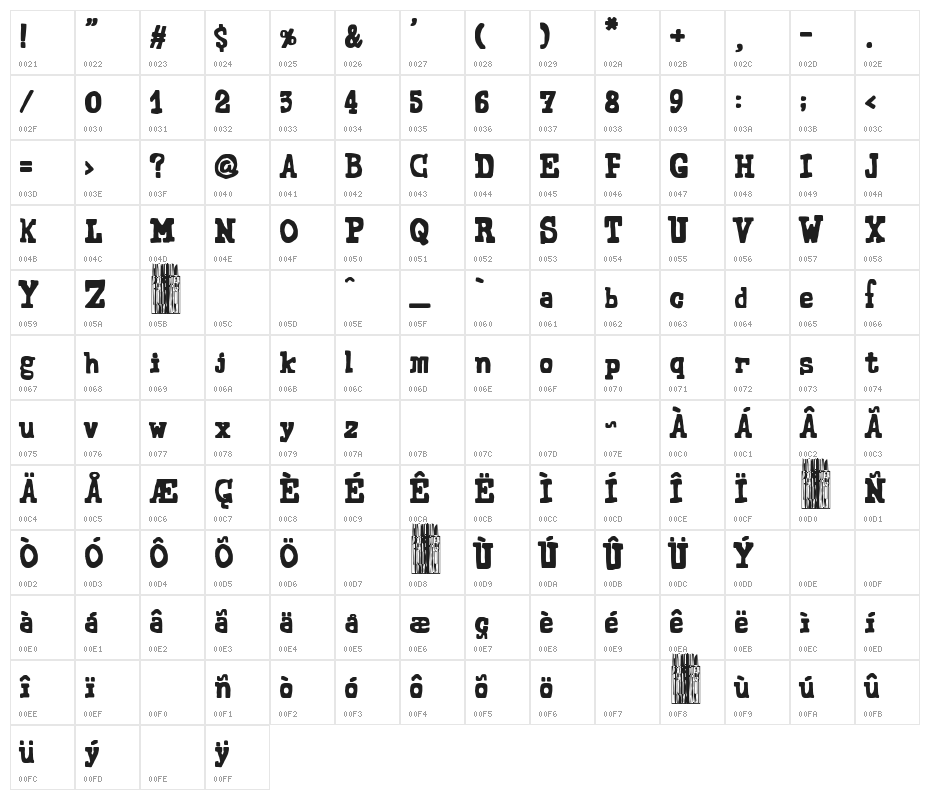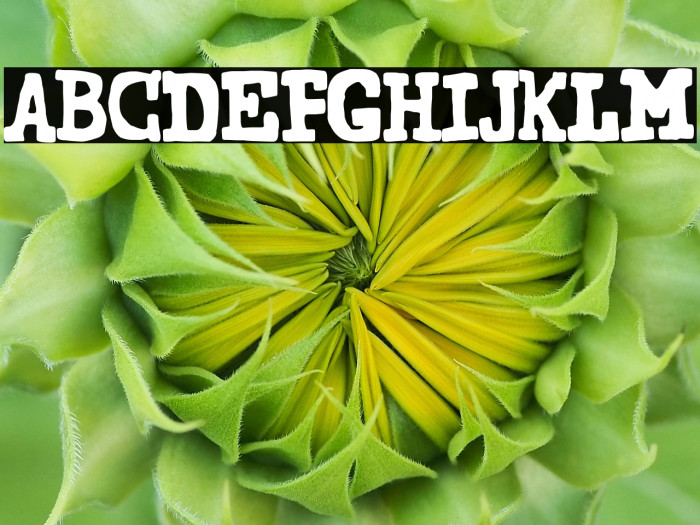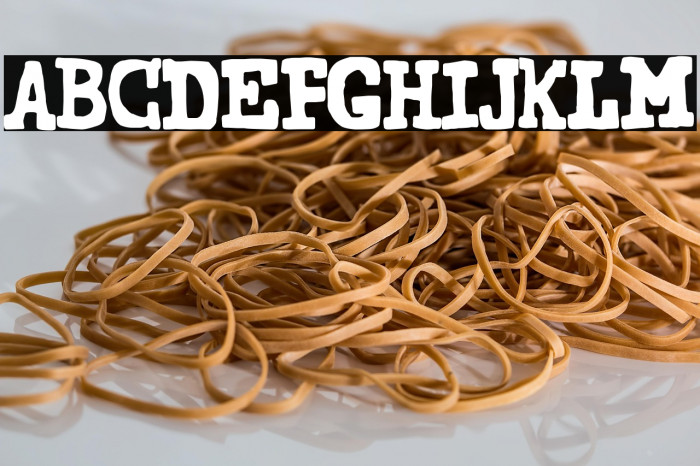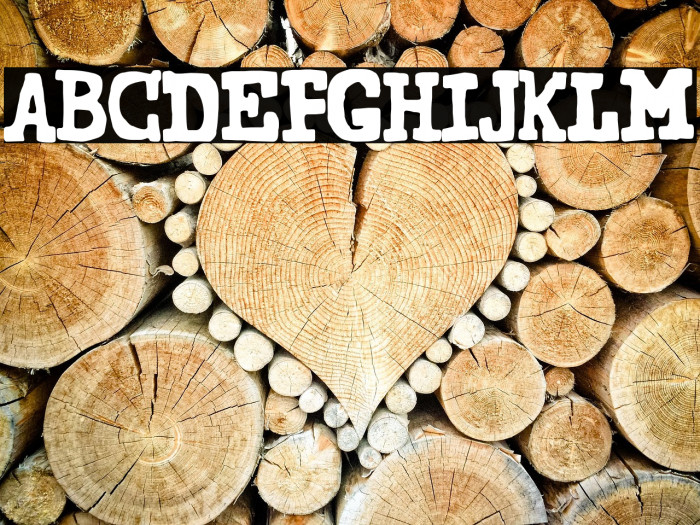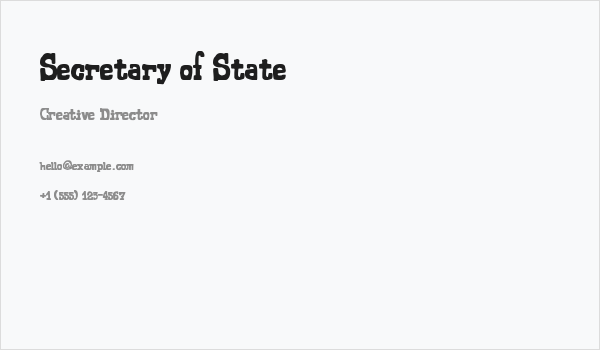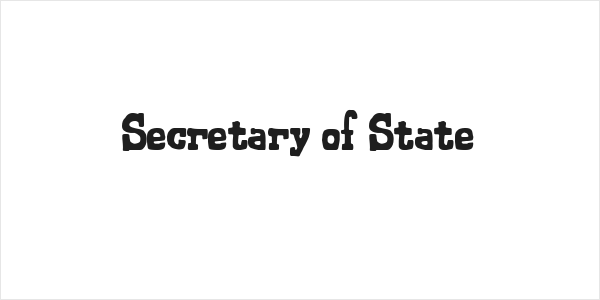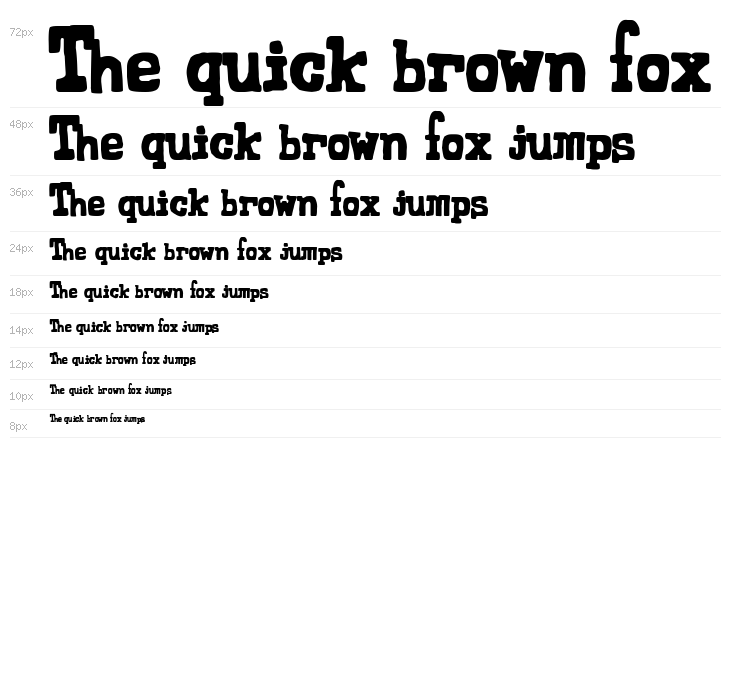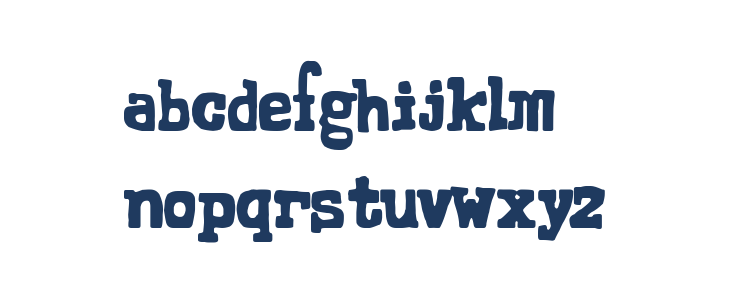
Secretary of State Font
Secretary of State Description
This font features a bold and playful style with a slightly irregular and hand-drawn appearance. The characters are thick and rounded, giving them a friendly and approachable look. The uppercase and lowercase letters maintain a consistent weight, while the numbers and special characters complement the overall design. The font's unique charm lies in its whimsical curves and slightly uneven lines, making it stand out in creative projects. Its boldness ensures high readability, while the quirky design adds a touch of fun and personality.
| Proposed Projects | Ideal for children's books, playful branding, posters, and creative invitations. |